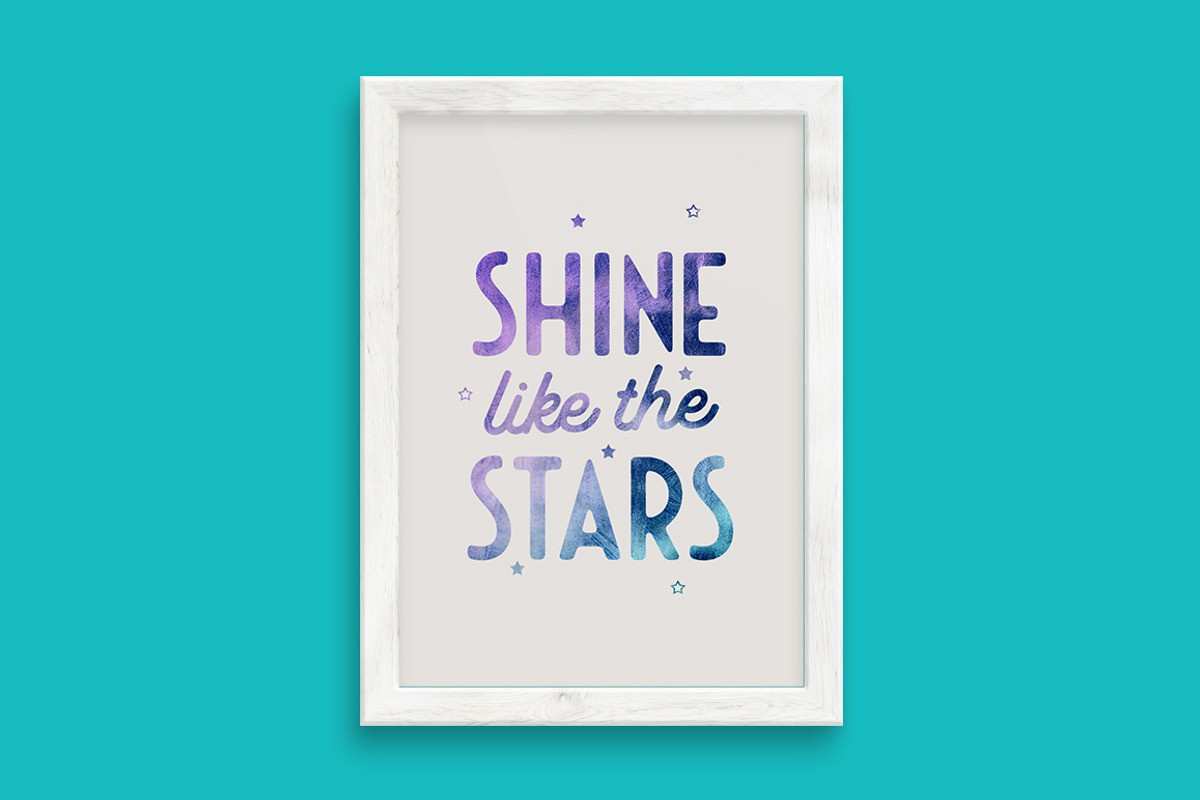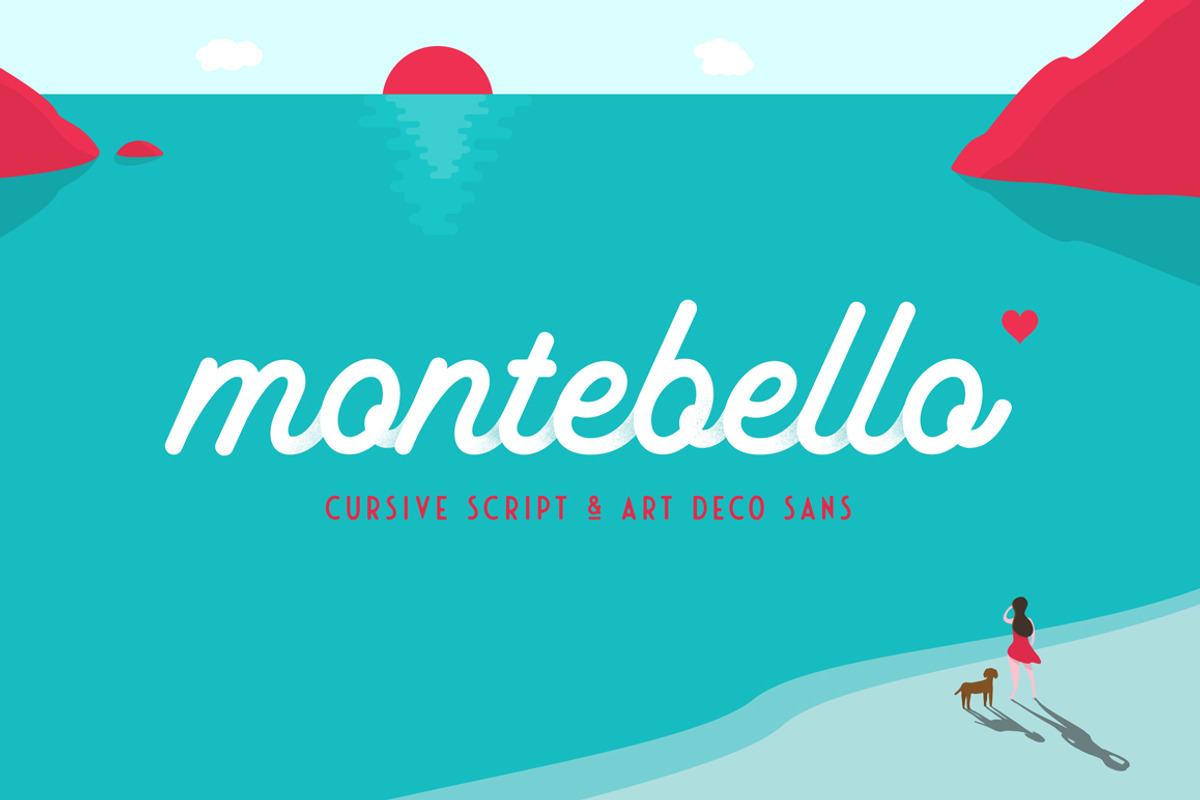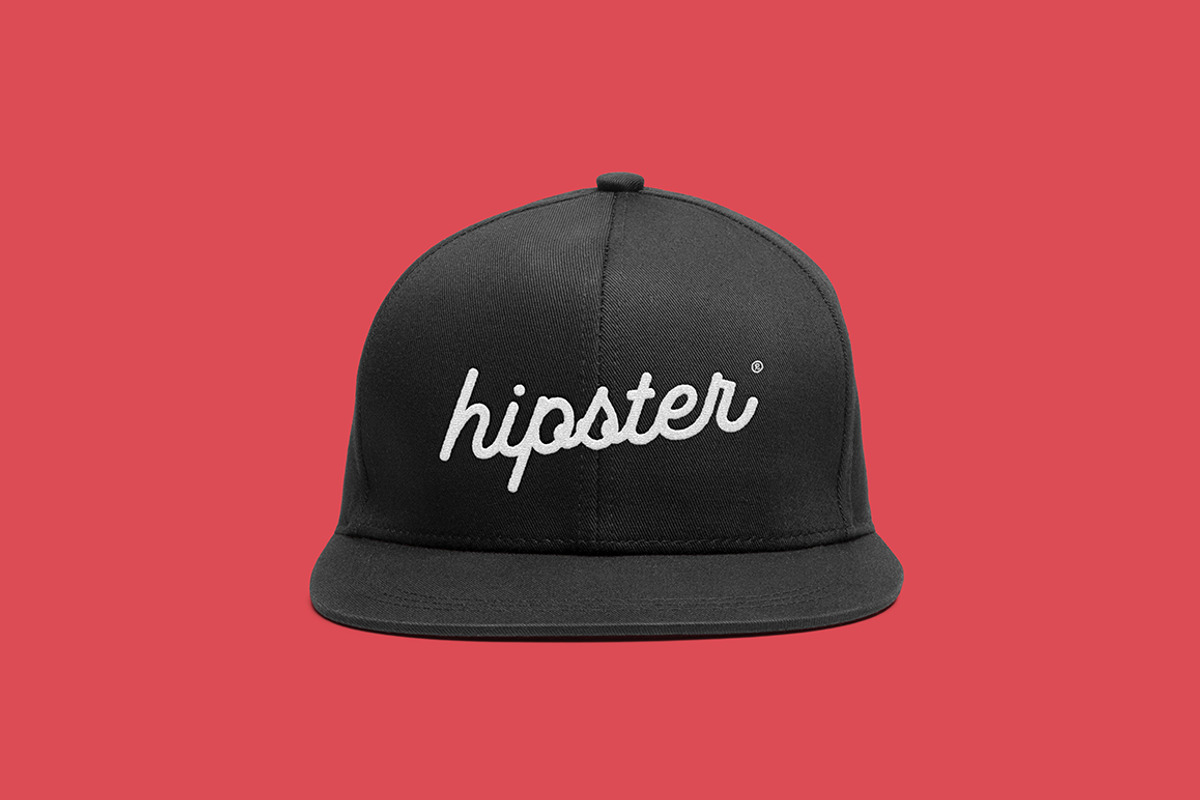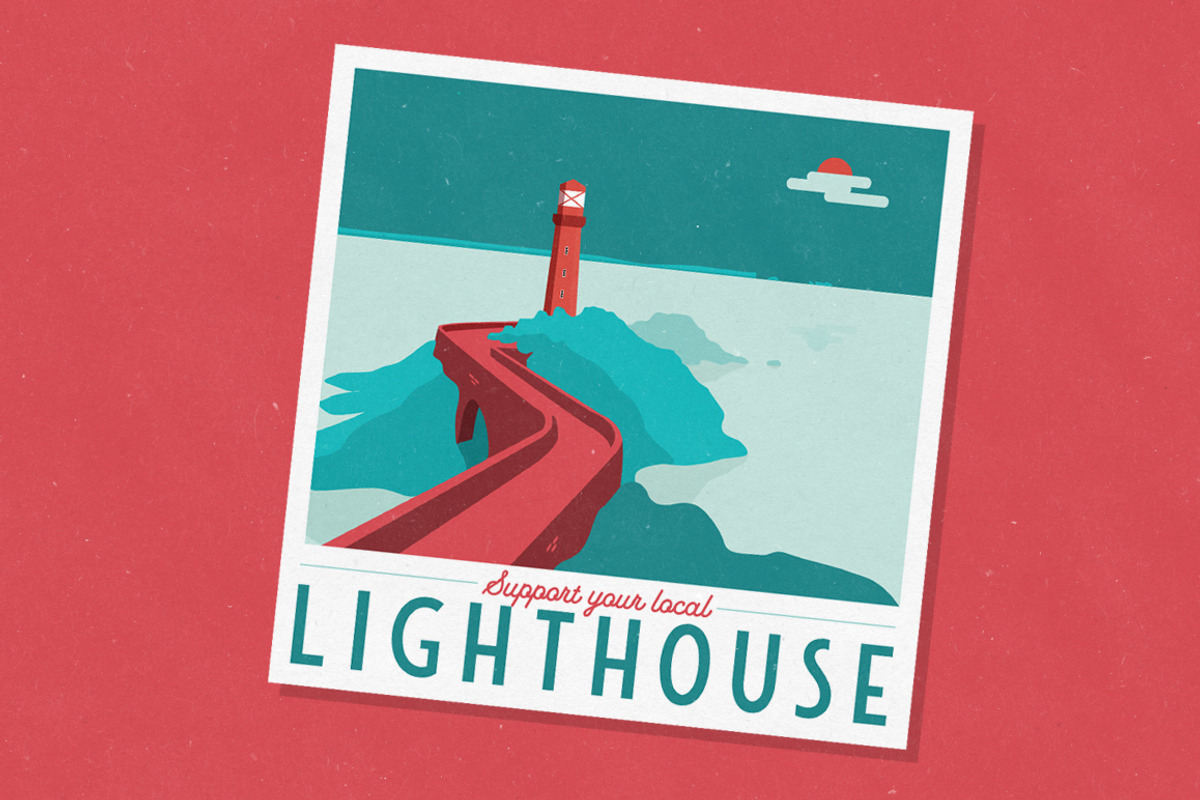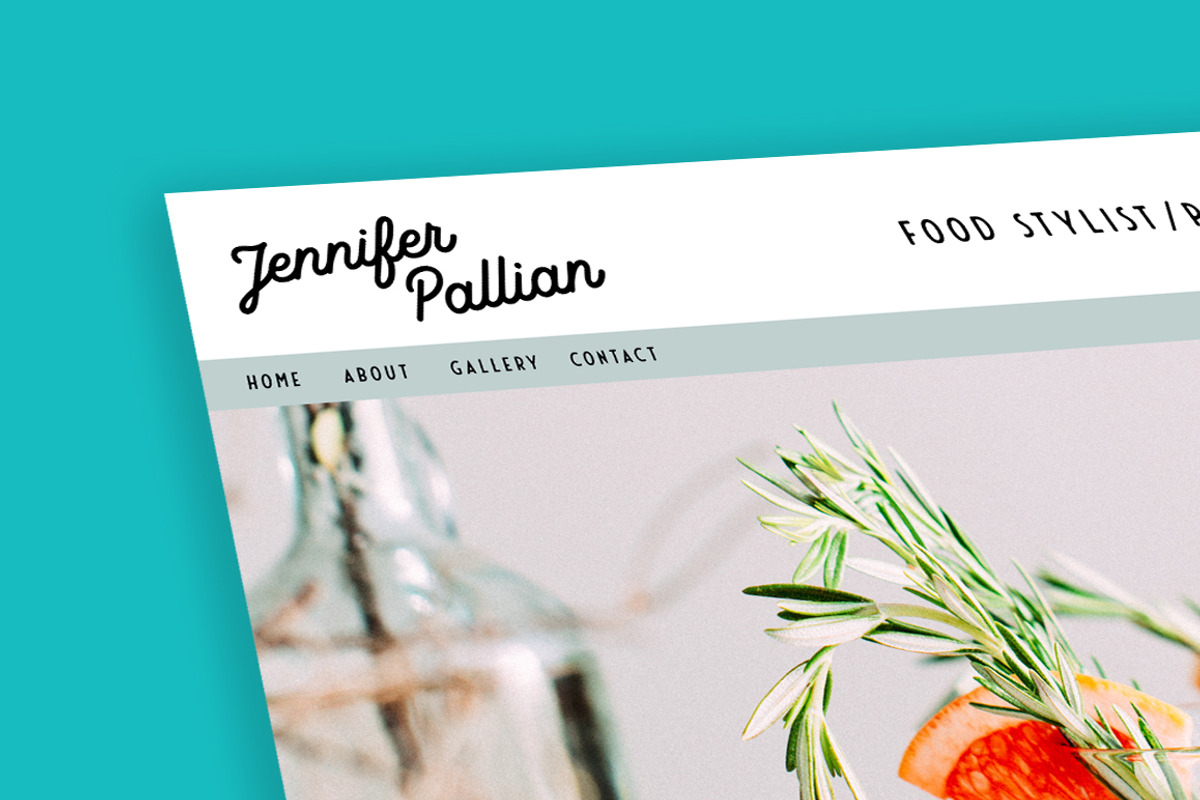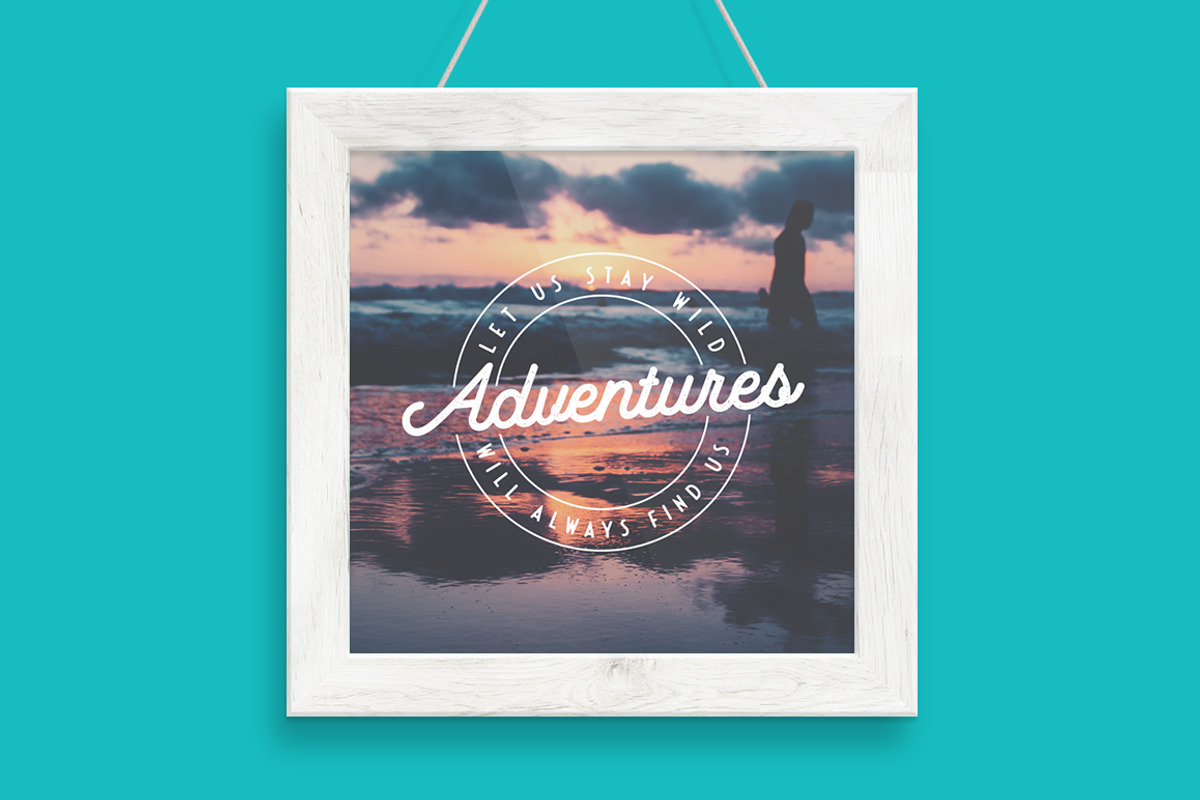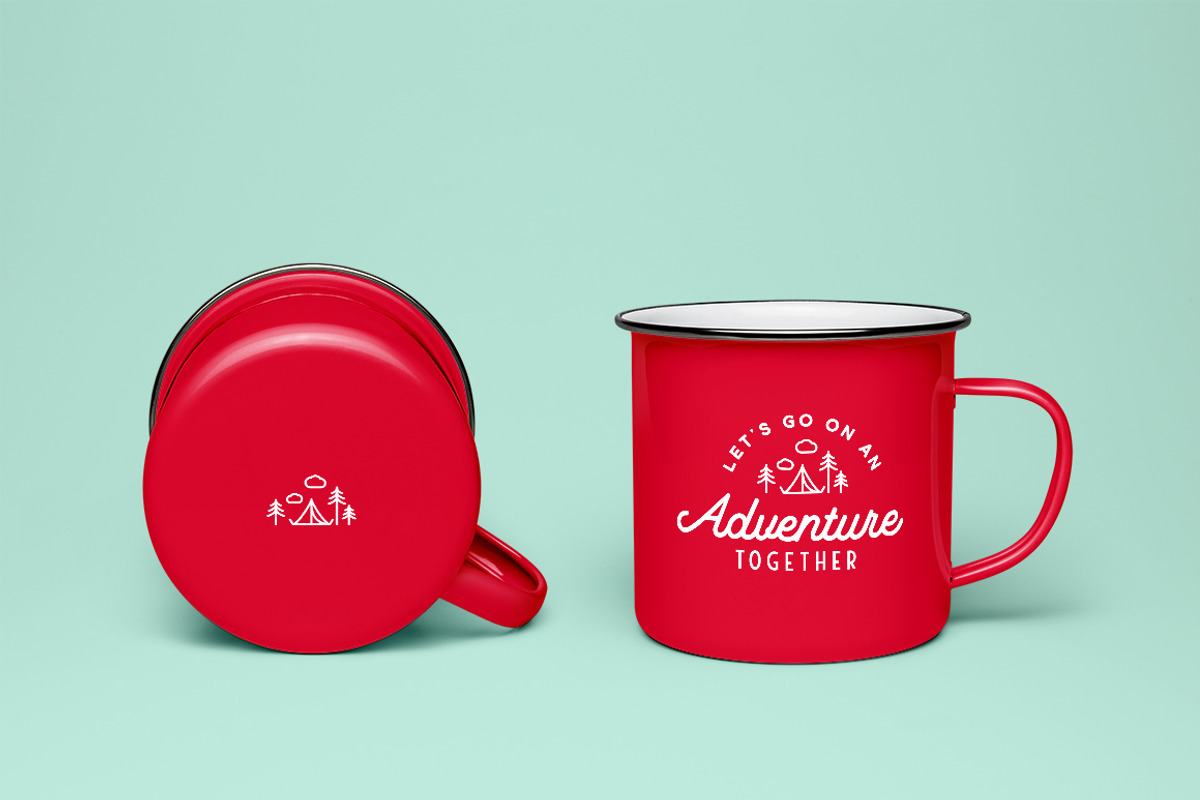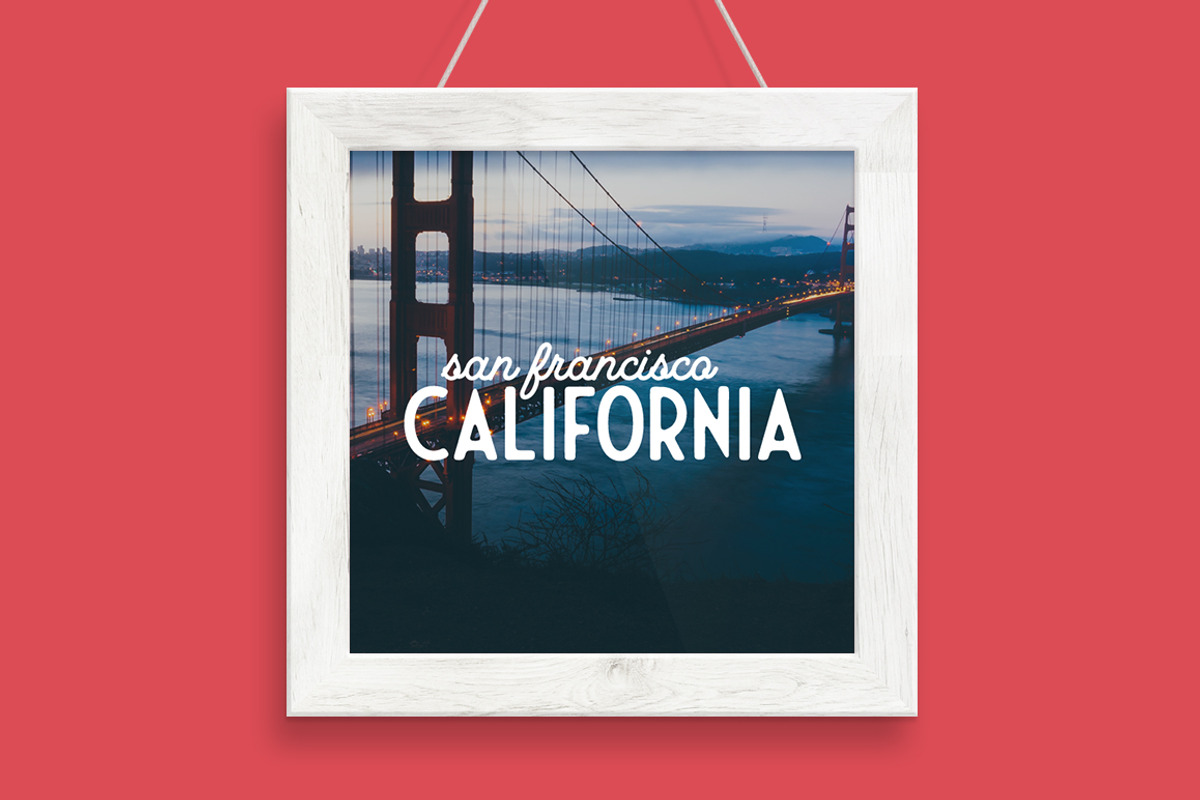
Montebello - Script Typeface
Montebello - Script Typeface by Ian Barnard is a font selected for branding, posters, packaging, typography.
Why Montebello - Script Typeface is worth a look
Montebello - Script Typeface by Ian Barnard fits naturally into Branding, posters, packaging, typography.